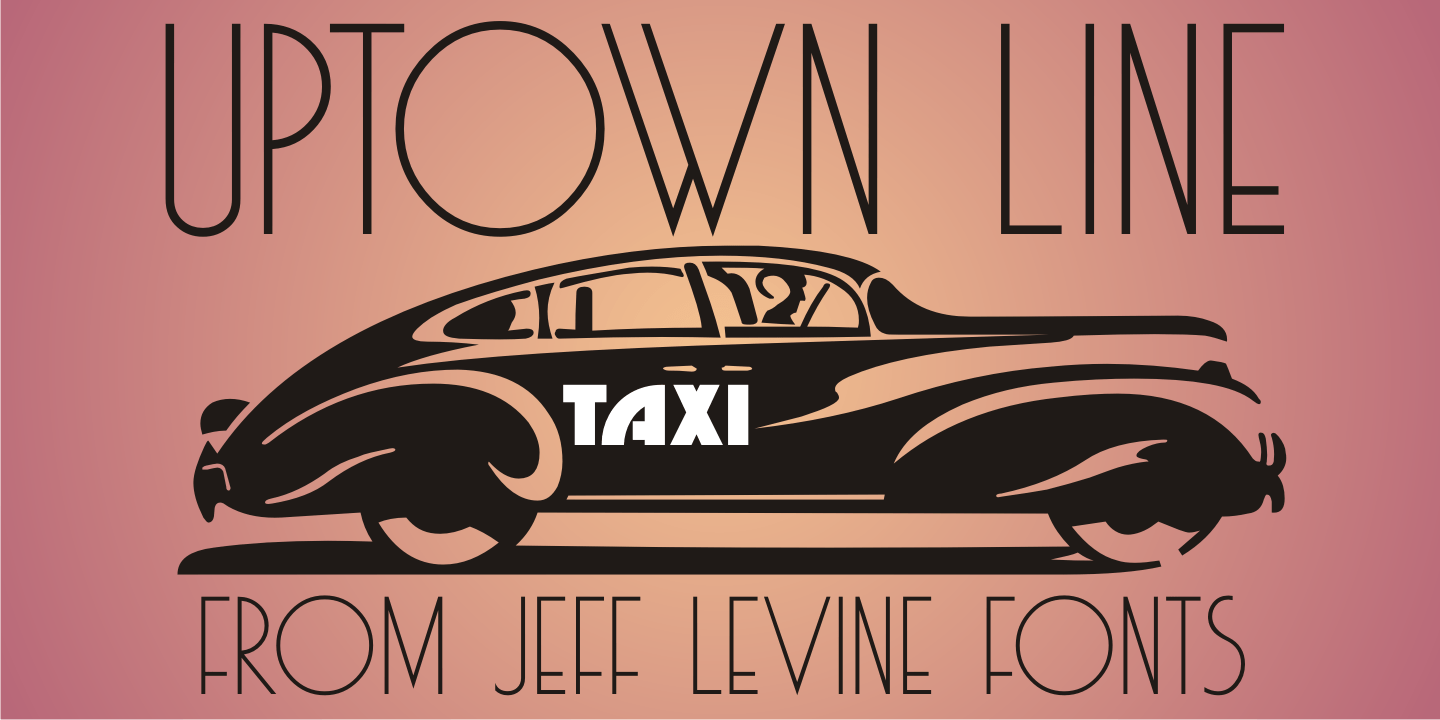
Uptown Line
Ask any typical New Yorker about subway directions and they'll tell you to take the 'uptown line', 'downtown line' or 'cross-town line'.
Uptown Line JNL is yet another variation of the Art Deco monoline style of lettering prevalent during the 1930s and 1940s, and is based on titling from vintage sheet music for a Johann Strauss classical piece.